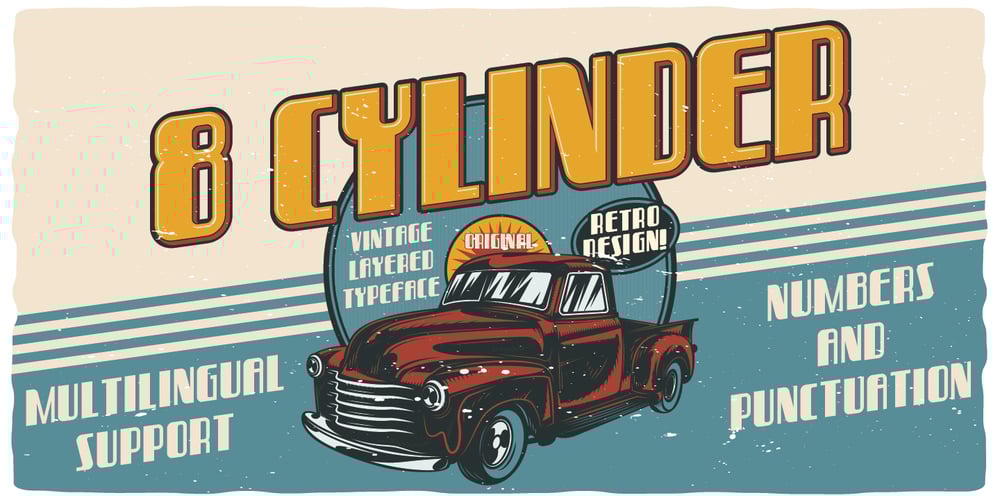
Eight Cylinder
Eight Cylinder font
Eight Cylinder Font Family was designed by Oleg Voznyy and published by Vozzy. Eight Cylinder contains 8 styles and family package options. Introducing a vintage look label font named Eight Cylinder. All available characters you can see at the screenshot. This font have 8 styles – Regular, Full, Shadow, Shine, Shadow FX, Shine FX, Outline and Print. This font will good viewed on any retro design like poster, t-shirt, label, logo etc.